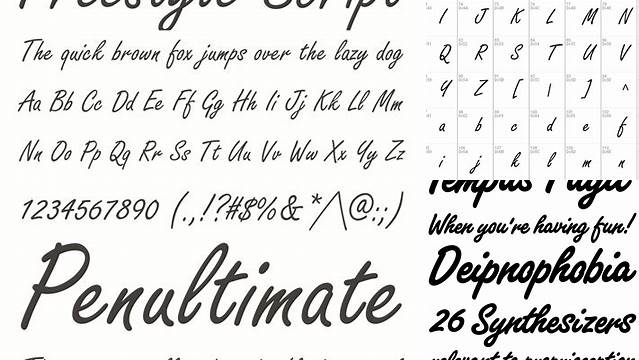
Freestyle Script STD Font: A Designer's Guide
Freestyle Script STD font, with its playful curves and flowing lines, has charmed designers and creatives for decades. This guide dives deep into the world of Freestyle Script, exploring its history, characteristics, and ideal use cases. If you're looking to add a touch of elegance and personality to your designs, Freestyle Script STD might just be your new best friend. Let's explore the creative possibilities this typeface unlocks!
What is Freestyle Script STD?
Freestyle Script STD, designed by Martin Wait in 1981, is a casual script font known for its dynamic strokes and signature flourishes. It's the kind of font that adds a personal, handwritten touch to any project, making it feel more inviting and approachable. Imagine a wedding invitation, a logo for a trendy cafe, or even a quote graphic for social media β Freestyle Script STD can seamlessly fit into these scenarios, and many more.
But what exactly makes this font so special? Well, it's all in the details. The letters connect seamlessly, creating a cursive flow that mimics natural handwriting. The slight variations in stroke thickness add depth and character, preventing it from looking too uniform or sterile. The playful swashes and loops on certain letters give it a whimsical feel, perfect for projects that need a touch of personality. Its distinct character makes it a favorite for designers who want to convey a sense of authenticity and warmth. Think about how a handwritten note feels compared to a typed document; Freestyle Script STD captures that same warmth and intimacy. Itβs this human touch that sets it apart from more formal or rigid fonts.
Furthermore, the versatility of Freestyle Script STD is a significant factor in its enduring popularity. It's not just limited to invitations and logos; it can also be used effectively in packaging design, website headers, and even short blocks of text. However, it's important to note that due to its decorative nature, it's best used sparingly. Overusing it can make your design look cluttered and difficult to read. Finding the right balance is key to harnessing its charm without sacrificing clarity. Consider it as a seasoning in your design recipe β a little can go a long way in enhancing the overall flavor.
The History and Evolution of Freestyle Script
To truly appreciate Freestyle Script STD, it's helpful to understand its origins and how it came to be such a beloved font. Martin Wait, a British typographer, created Freestyle Script in the pre-digital era, a time when font design was a much more manual and painstaking process. This hands-on approach is evident in the font's organic and free-flowing style. Wait's vision was to create a script typeface that felt both elegant and informal, capturing the essence of natural handwriting without being overly stuffy or formal.
The early 1980s were a fertile period for typeface design, with many designers experimenting with new styles and techniques. Freestyle Script STD emerged as a fresh and distinctive voice in this landscape, quickly gaining popularity for its unique blend of sophistication and playfulness. Its availability in digital formats further fueled its adoption, making it accessible to a wider range of designers and users.
Over the years, Freestyle Script STD has undergone subtle refinements and adaptations, but its core character has remained consistent. This consistency is a testament to the strength of Wait's original design. While many fonts fade into obscurity, Freestyle Script STD has managed to stay relevant and in demand, a feat that speaks volumes about its timeless appeal. It has seen use in countless projects, from high-end advertising campaigns to personal greeting cards, demonstrating its adaptability across different contexts.
The font's evolution also reflects broader trends in design. As design aesthetics have shifted towards more personalized and authentic styles, Freestyle Script STD's handwritten feel has become even more valuable. In a world saturated with digital perfection, its imperfections and irregularities are seen as strengths, adding a human touch that resonates with audiences. This enduring appeal highlights the importance of understanding design history and how fonts evolve to meet changing needs and preferences. By appreciating its journey, we can better understand how to use Freestyle Script STD effectively in contemporary design projects.
Key Characteristics of Freestyle Script STD
Understanding the key characteristics of Freestyle Script STD is essential for using it effectively in your design projects. It's not just about choosing a pretty font; it's about understanding its nuances and how it communicates your message. Letβs break down the elements that make Freestyle Script STD so unique and versatile.
First and foremost, the connecting strokes are a defining feature. Unlike many fonts where letters stand alone, Freestyle Script STD's letters flow seamlessly into one another, creating a sense of fluidity and movement. This connectedness mimics the natural flow of handwriting, giving it an organic and approachable feel. Imagine writing a word in cursive β that's the kind of visual effect Freestyle Script STD aims to replicate. This characteristic makes it particularly well-suited for projects where you want to convey a personal touch, such as invitations or personalized stationery.
Another key element is the variation in stroke thickness. Look closely, and you'll notice that the lines aren't uniform. Some strokes are thicker, while others are thinner, creating a dynamic visual texture. This variation adds depth and character, preventing the font from looking flat or monotonous. Itβs this subtle detail that elevates Freestyle Script STD from a simple script font to a sophisticated and expressive typeface. The contrast in stroke weight also contributes to its readability, making it easier for the eye to follow the flow of the letters.
Finally, we can't forget the distinctive swashes and loops. These decorative elements add a touch of whimsy and elegance to the font. They're like the finishing flourishes on a handwritten signature, adding personality and flair. The swashes and loops are particularly prominent on capital letters, making them ideal for headings and titles. However, it's important to use them judiciously. Overusing swashes can make your design look cluttered and overwhelming. Like any decorative element, they should be used to enhance, not distract from, the overall message.
Ideal Use Cases for Freestyle Script STD
Knowing where to use Freestyle Script STD is just as important as understanding its characteristics. This font, while beautiful, isn't a one-size-fits-all solution. Its strengths lie in specific contexts where its personality can truly shine. Think of it as choosing the right tool for the job β a delicate script font isn't the best choice for technical manuals, but it's perfect for adding a touch of elegance to wedding invitations.
One of the most popular use cases for Freestyle Script STD is in invitations and announcements. Its elegant and personal feel makes it ideal for setting the tone for special occasions. Whether it's a wedding, a birthday party, or a graduation, Freestyle Script STD adds a touch of sophistication and warmth. The flowing script conveys a sense of celebration and invites the recipient to share in the joy of the event. The swashes and loops can be used to highlight key details, such as the names of the hosts or the date of the event, adding a touch of flair without being overwhelming.
Another excellent application is in logo design, especially for brands that want to project a friendly and approachable image. Think of cafes, boutiques, or artisanal businesses β these are the kinds of brands that can benefit from the personal touch of Freestyle Script STD. The handwritten feel conveys a sense of authenticity and craftsmanship, which can be particularly appealing to consumers who value handmade or locally sourced products. However, it's crucial to ensure that the logo remains legible and scalable. While Freestyle Script STD is beautiful, it can become difficult to read at very small sizes, so it's important to test it in different contexts.
Social media graphics are another area where Freestyle Script STD can be used effectively. It's perfect for creating eye-catching quotes or announcements that stand out in a crowded feed. The font's personality helps to capture attention and convey a sense of warmth and authenticity, which can be particularly valuable in building a connection with your audience. However, it's important to use it sparingly and in combination with other fonts to avoid overwhelming the design.
How to Pair Freestyle Script STD with Other Fonts
Font pairing is an art, and mastering it is crucial for creating visually harmonious designs. Freestyle Script STD, with its distinct personality, requires careful consideration when choosing a companion font. The goal is to find a font that complements its elegance without competing for attention. Think of it as pairing wine with food β you want flavors that enhance each other, not clash.
One of the most effective strategies is to pair Freestyle Script STD with a clean and simple sans-serif font. This creates a visual contrast that is both pleasing and easy to read. A sans-serif font, with its clean lines and lack of serifs, provides a sense of stability and balance, while Freestyle Script STD adds a touch of personality and flair. This combination works well for a variety of projects, from website headers to marketing materials. Imagine a website header with a bold sans-serif headline and a Freestyle Script STD subheading β the contrast creates a visual hierarchy that draws the eye and guides the reader.
Another approach is to pair Freestyle Script STD with a classic serif font. This combination can evoke a sense of timeless elegance, making it ideal for projects that require a touch of sophistication. A serif font, with its small decorative strokes, adds a sense of formality and tradition, while Freestyle Script STD adds a handwritten touch. This pairing is particularly well-suited for invitations, stationery, and other projects where you want to convey a sense of refinement. Think of a wedding invitation with a classic serif font for the main text and Freestyle Script STD for the names of the bride and groom β the combination is both elegant and personal.
When choosing a pairing font, it's important to consider the overall tone and message of your design. A playful script font like Freestyle Script STD works best with fonts that are clear and legible, allowing its unique character to shine without sacrificing readability. It is also important to consider the weight and size of the fonts in relation to each other. A heavier or larger font can overpower Freestyle Script STD, while a lighter or smaller font may get lost in the mix.
Tips and Tricks for Using Freestyle Script STD Effectively
Using Freestyle Script STD effectively isn't just about knowing its ideal use cases; it's also about understanding the subtle nuances that can make or break your design. Here are some practical tips and tricks to help you master this elegant typeface and create stunning visuals.
First and foremost, use it sparingly. Freestyle Script STD is a decorative font, and like any decorative element, it's best used in moderation. Overusing it can make your design look cluttered and overwhelming, defeating its purpose. Think of it as a seasoning in your design recipe β a little can go a long way in enhancing the overall flavor. Use it for headlines, logos, or short bursts of text, but avoid using it for large blocks of body copy. This will ensure that the font's personality shines without sacrificing readability.
Another important tip is to pay attention to kerning and spacing. Kerning refers to the space between individual letters, while spacing refers to the overall density of the text. Freestyle Script STD's connecting strokes require careful attention to these details. If the letters are too close together, they can become cramped and difficult to read. If they're too far apart, the connection is lost, and the font loses its fluidity. Experiment with different kerning and spacing settings until you achieve a visually pleasing and legible result. This may involve adjusting the spacing between specific letter pairs, as some combinations may require more or less space than others.
Finally, consider the context and audience. Freestyle Script STD is a versatile font, but it's not appropriate for every situation. It's best suited for projects that require a touch of elegance, warmth, or personality. If you're designing for a more formal or professional setting, you may want to choose a different font. Similarly, consider your target audience. A younger audience may appreciate the font's playful nature, while an older audience may find it too informal. Understanding your audience and the message you want to convey is key to choosing the right typeface.
Freestyle Script STD: A Timeless Classic
In conclusion, Freestyle Script STD is more than just a font; it's a timeless classic that has captured the hearts of designers for decades. Its elegant curves, flowing lines, and personal touch make it a versatile choice for a wide range of projects. Whether you're designing invitations, logos, or social media graphics, Freestyle Script STD can add a touch of sophistication and warmth to your work.
By understanding its history, characteristics, and ideal use cases, you can harness its power to create stunning visuals that resonate with your audience. Remember to use it sparingly, pay attention to kerning and spacing, and consider the context and audience. With these tips and tricks, you'll be well on your way to mastering Freestyle Script STD and unlocking its full potential.
So, the next time you're looking for a font that combines elegance with personality, remember Freestyle Script STD. It's a classic for a reason, and with a little creativity, it can help you create designs that are both beautiful and effective. Embrace its unique charm, and let your creativity flow!